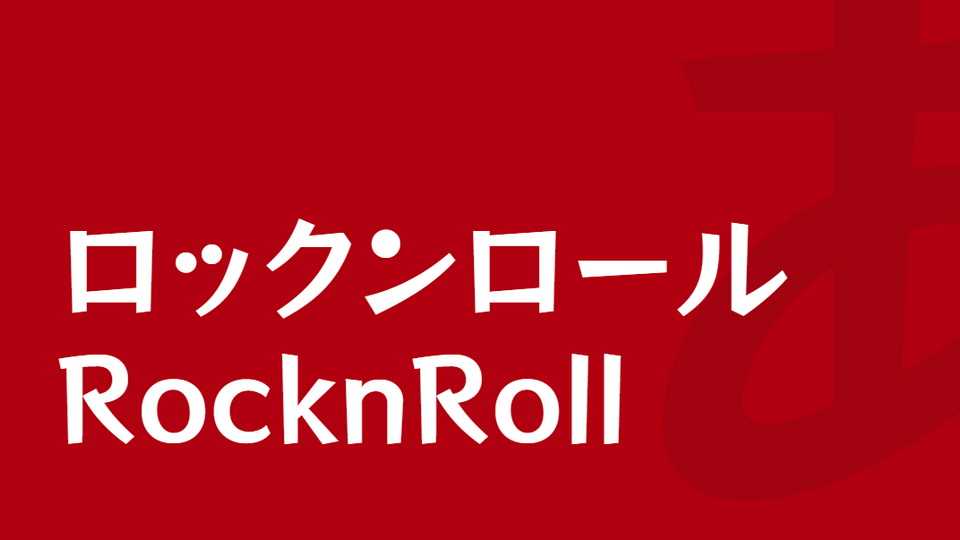
Download RocknRoll font, an original pop-style typeface. The strokes of varying intensity add momentum and the rounded dots create a lively and dynamic feel.
Designer: Fontworks Inc.